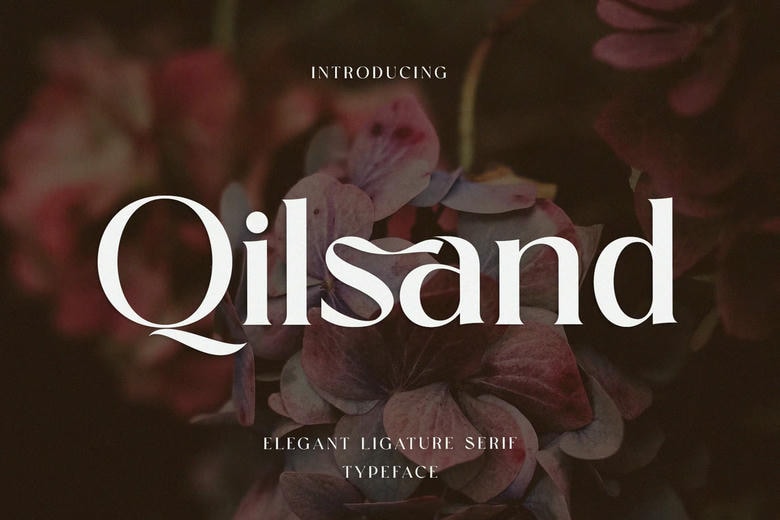
Qilsand Font
Qilsand is an elegant modern serif font that evokes the beauty of fresh flowers and timeless elegance. With its bold yet refined ligatures, Qilsand stands out as a sophisticated and feminine font. Perfect for high-end designs, whether for florals, fashion, or high-end brands, Qilsand combines the charm of classic serif styles with a modern twist.
Each letter feels intentional, with a soft, graceful presence that enhances any project it touches. Bring a touch of sophistication and natural grace to your work with Qilsand. Let this font infuse your designs with elegance and watch them blossom with style and character.
Qilsand Serif Font